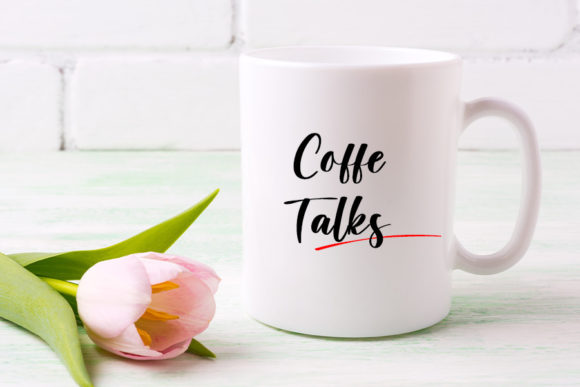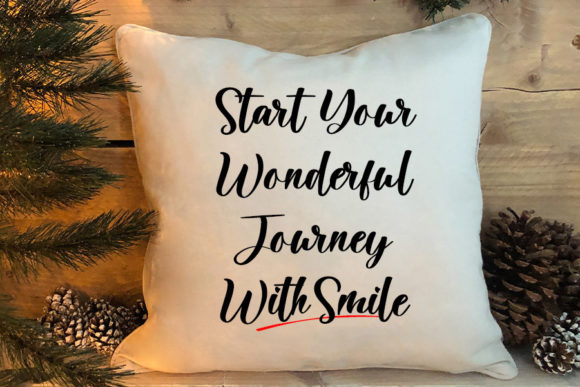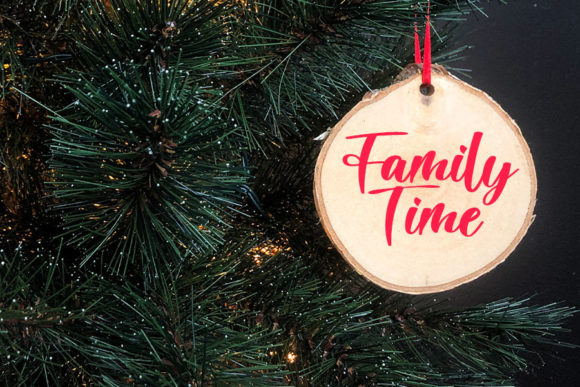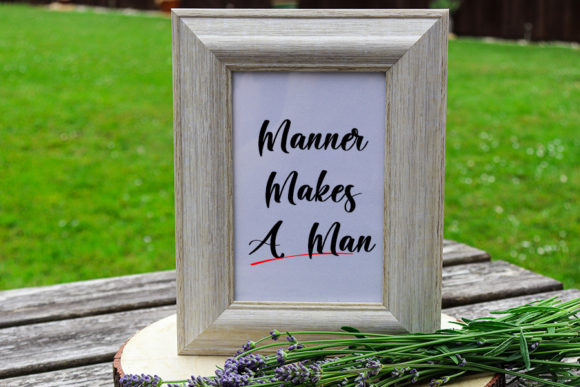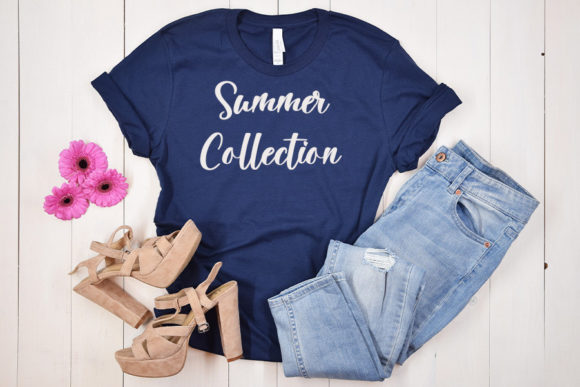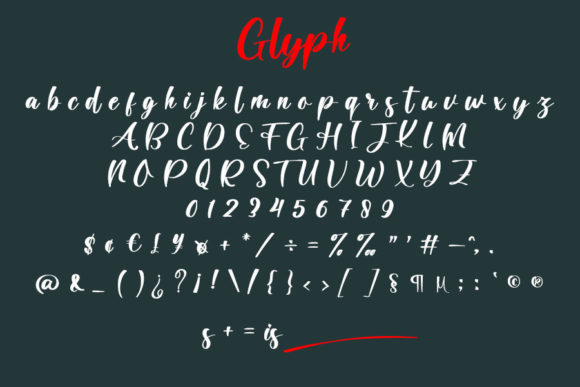
Discover the Elegance of Charlotte Font: A Lovely Script Font for Your Designs
Are you a designer or crafter looking for a font that exudes elegance and class? Look no further than Charlotte Font, a beautiful and delicate script font that is sure to add a touch of sophistication to your designs. In this article, we’ll take a closer look at Charlotte Font, its features, and how you can use it to elevate your designs.
What is Charlotte Font?
Charlotte Font is a lovely and delicate script font that was particularly crafted for those who need a beautiful and refreshing look to their designs. With its elegant and classy appearance, this font is perfect for a variety of design projects, from wedding invitations and branding materials to packaging and advertising.
Key Features of Charlotte Font
So, what makes Charlotte Font so special? Here are some of its key features:
- Elegant and Delicate: Charlotte Font features a delicate and elegant design that is sure to add a touch of sophistication to your designs.
- Script Style: This font features a beautiful script style that is perfect for creating elegant and refined designs.
- Refreshing Look: Charlotte Font has a refreshing look that is sure to make your designs stand out from the crowd.
- High-Quality: This font is designed to be high-quality and versatile, making it perfect for a variety of design projects.
How to Use Charlotte Font in Your Designs
Now that we’ve covered the features of Charlotte Font, let’s take a look at how you can use it in your designs. Here are some ideas to get you started:
- Wedding Invitations: Charlotte Font is perfect for wedding invitations, adding a touch of elegance and sophistication to your designs.
- Branding Materials: Use Charlotte Font to create beautiful branding materials, such as logos, business cards, and letterheads.
- Packaging: Add a touch of elegance to your packaging designs with Charlotte Font, perfect for luxury brands and products.
- Advertising: Use Charlotte Font to create eye-catching advertising materials, such as billboards, posters, and flyers.
Tips for Using Charlotte Font Effectively
To get the most out of Charlotte Font, here are some tips to keep in mind:
- Pair with Other Fonts: Charlotte Font pairs well with other fonts, such as sans-serif fonts, to create a beautiful contrast.
- Use in Headlines: Use Charlotte Font in headlines to add a touch of elegance and sophistication to your designs.
In conclusion, Charlotte Font is a beautiful and delicate script font that is sure to add a touch of elegance and class to your designs. With its refreshing look and high-quality design, this font is perfect for a variety of design projects. Whether you’re a designer or crafter, Charlotte Font is a great choice for anyone looking to create beautiful and sophisticated designs.